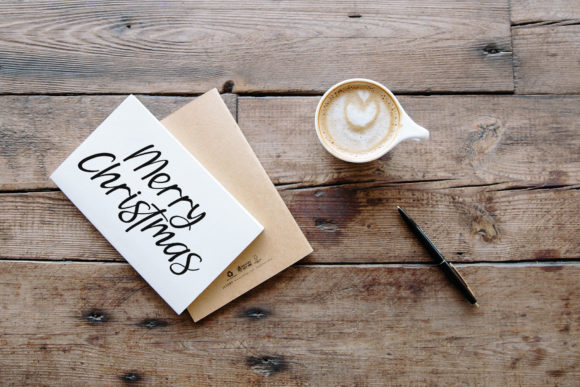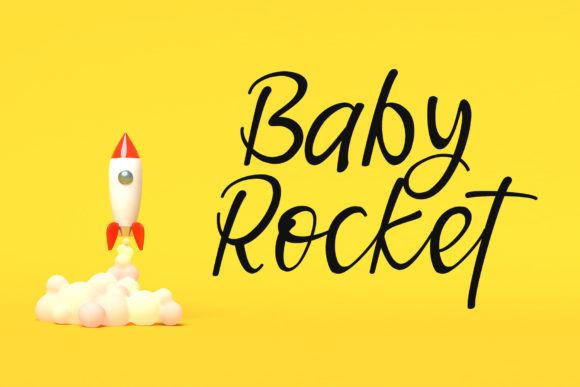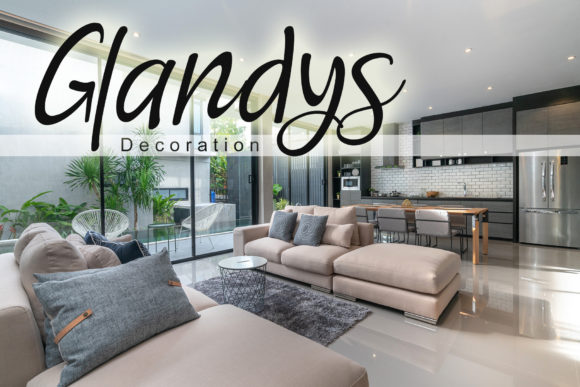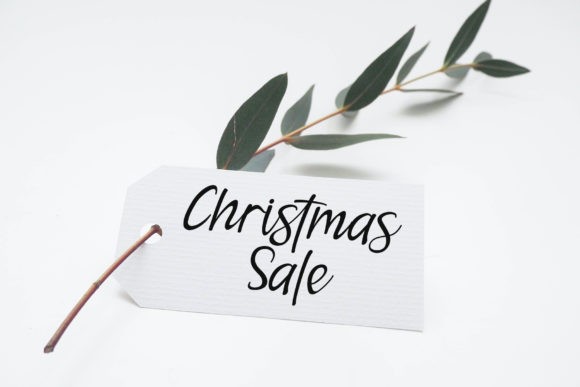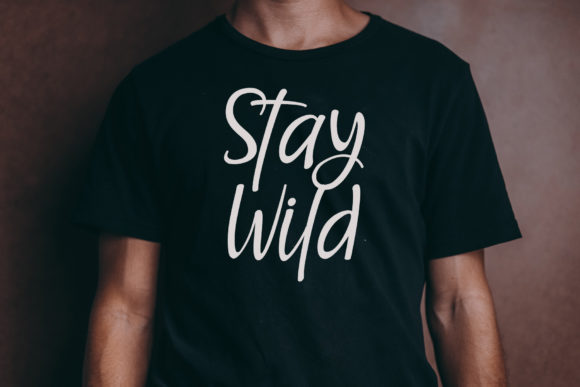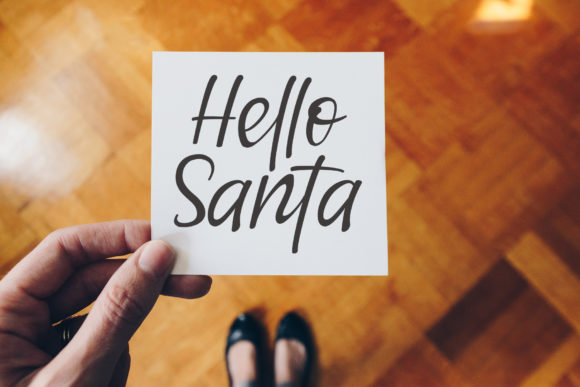
The Elusive Luxury Font: My Love Affair with Christiano
I still remember the design project that made me fall in love with the Christiano font. I was working on a luxury branding project for a high-end jewelry client, and I was struggling to find the perfect font that exuded elegance and sophistication. The client was adamant that the font had to be unique, yet timeless, and I was on a mission to find it. After hours of scouring through font libraries and testing out different typefaces, I stumbled upon Christiano, and it was love at first sight!
This stunning calligraphy typeface has characters that dance along the baseline, adding a touch of luxury to any design project. In this article, I’ll share my honest review of Christiano, provide a practical guide on how to use it, and explore similar fonts that you might enjoy.
An Honest Review of Christiano
- ✨ Elegant and sophisticated design that’s perfect for luxury branding projects
- 🎨 Beautifully crafted characters that add a touch of personality to any design
- 💻 Compatible with OpenType features, glyphs, and stylistic alternates
While Christiano is an amazing font, there are a few quirks to be aware of:
- 🤔 Some characters may not work well in all design contexts, such as body text or captions
- ⚠️ Limited availability of certain glyphs or special characters
A Practical Guide to Using Christiano
The Designer Inspiration Behind Christiano
Christiano was designed by a renowned type designer who was inspired by the art of traditional calligraphy. The font is named after the famous soccer player Cristiano Ronaldo, who embodies the same sense of luxury and sophistication that the font exudes.
Q: What is Christiano font?
A: Christiano is a distinct and flowing calligraphy typeface with characters that dance along the baseline.
Q: Is Christiano suitable for body text?
A: While Christiano is highly legible, it may not be the best choice for body text due to its elegant and refined design.
Q: Does Christiano support OpenType features?
A: Yes, Christiano supports OpenType features, including ligatures, stylistic alternates, and glyphs.